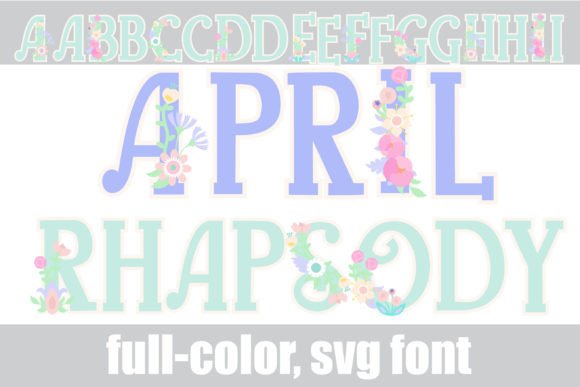
April Rhapsody Font: A Beautiful Full-Color Font for Your Designs
Are you looking for a unique and eye-catching font to add a touch of personality to your designs? Look no further than the April Rhapsody Font, a stunning full-color font featuring beautiful florals on a serif font. In this article, we’ll take a closer look at this gorgeous font and explore its features, benefits, and uses.
What is April Rhapsody Font?
April Rhapsody Font is a full-color font that combines beautiful florals with a classic serif font. The font features a unique and elegant design, making it perfect for a variety of projects, from logos and branding to web design and print. One of the standout features of this font is its alt case, which includes additional colors that can be accessed through your system or Silhouette’s glyph map.
Benefits of Using Full-Color SVG Fonts
Full-color SVG fonts, like April Rhapsody Font, offer a range of benefits that make them an excellent choice for designers. Here are some of the advantages of using full-color SVG fonts:
- Versatility: Full-color SVG fonts are versatile and can be used for a variety of projects, from logos and branding to web design and print.
- Scalability: SVG fonts are vector-based, so they can be scaled to any size without losing quality.
- High Quality: Full-color SVG fonts are high-quality and will not lose their resolution when scaled.
Uses of April Rhapsody Font
April Rhapsody Font is perfect for a wide range of design projects, including:
- Logos and Branding: Create a unique and memorable logo for your business or brand.
- Web Design: Add a touch of personality to your website with a full-color SVG font.
- Print Design: Use April Rhapsody Font for brochures, flyers, posters, and other print materials.
- Social Media Graphics: Create eye-catching social media graphics with a full-color SVG font.
Tips for Getting the Most Out of April Rhapsody Font
Here are some tips for getting the most out of April Rhapsody Font:
- Experiment with Different Colors: Try out different color combinations to find the perfect look for your design.
- Use it with Other Fonts: Pair April Rhapsody Font with other fonts to create a unique and interesting design.
- Scale it Up or Down: Take advantage of the font’s scalability to use it for a variety of projects.
April Rhapsody Font is a stunning full-color font that can add a touch of personality to your designs. With its beautiful florals and classic serif font, it’s perfect for a wide range of projects. Whether you’re a designer, artist, or DIY enthusiast, this font is sure to inspire your creativity. So why wait? Download April Rhapsody Font today and start creating stunning designs that stand out from the crowd!